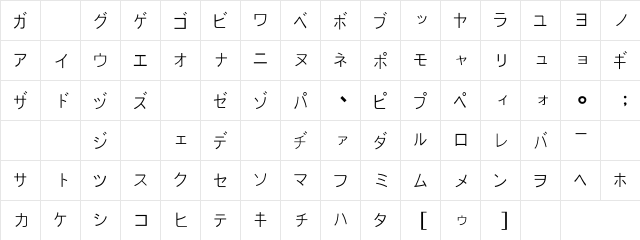
PJ Katakana Normal
Design Context for PJ Katakana Typeface
PJ Katakana is a composed and adaptable typeface that performs quietly and consistently across a wide range of design contexts.